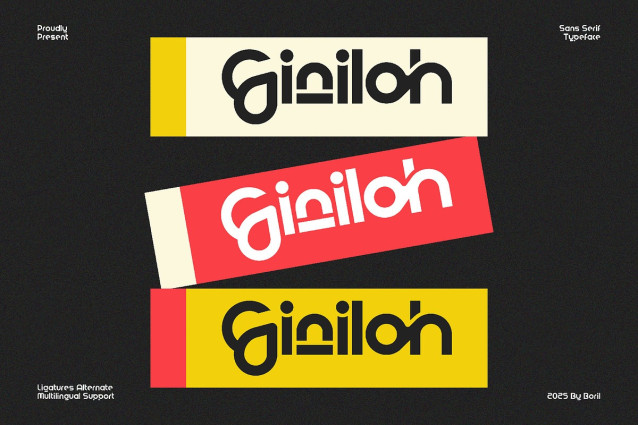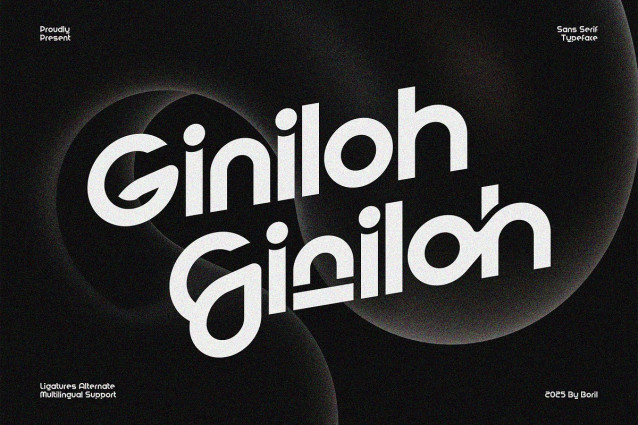
Giniloh Font
Giniloh Font: Rounded corners on most letters, creating a friendly and modern impression. The stroke weight is almost uniform across all letters, suitable for casual designs or brands looking to create a friendly look. Available in uppercase and lowercase, multiple ligatures, and multilingual alternatives.